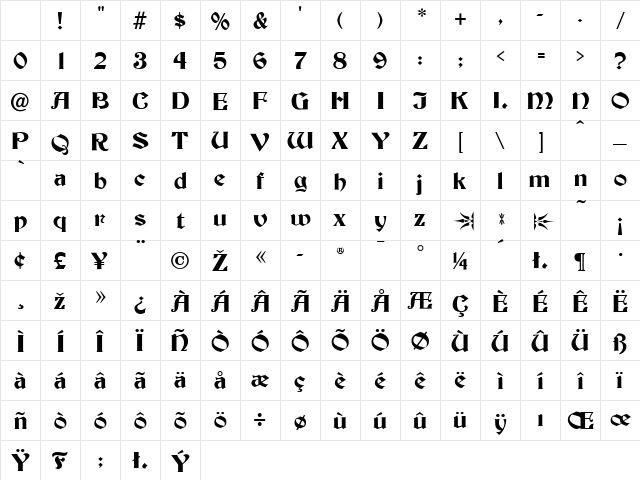
Complete Becker Bold glyph index. Displaying only characters natively supported by Becker Bold font.
Becker is a composed and adaptable typeface that performs quietly and consistently across a wide range of design contexts. Its bold stroke weight gives it real presence on the page.